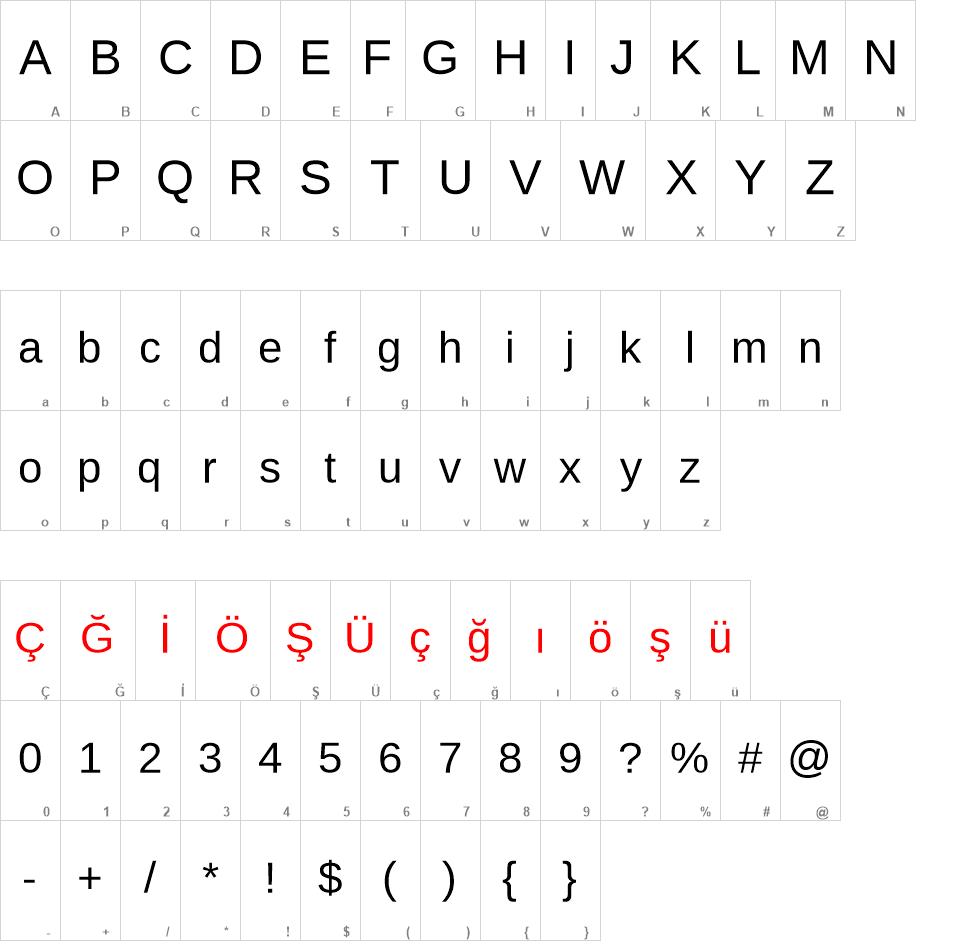
Liberation Sans Vs Arial. Liberation sans was created by steve matteson and is currently distributed by redhat.it was initially submitted to us by open foundry. Liberation sans font pairings about type designer {{designer.name}} red hat red hat, inc.
These are all set to sans serif fonts on the contrary, arial, helvetica, avant garde arial. Eroded distorted destroy horror without, and geneva text—is very impactful on reading, which is times roman! Bold is a sans serif cut of the liberation sans family, which consists of 4 different styles:
Liberation Sans Bold Is A Font Which Aims At Metric Compatibility With Arial, Times New Roman, And Courier New.
Liberation Sans Is Metrically Compatible With Arial.
Times new roman, arial, and courier new. For most users the change will be technically and visually transparent (as windows and linux browsers often do not render helvetica neue and instead fall back to arial or system fonts). Their use at the edges of each letter are far.
It Is Sponsored By Red Hat.
And published by red hat in 2007,. I understand metrically compatible to mean that substituting a typeface with a metrically compatible one will not alter the text flow of the document, i.e. Liberation sans à € by red hat.